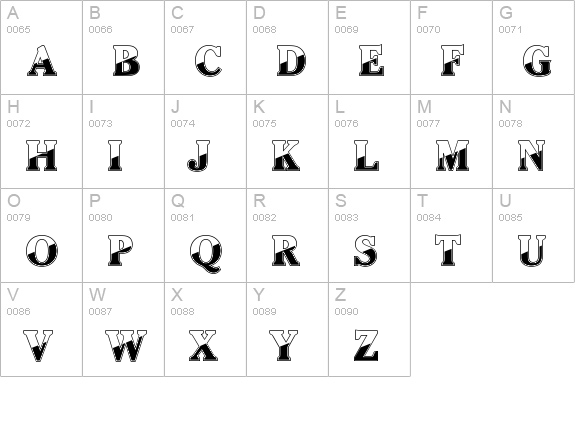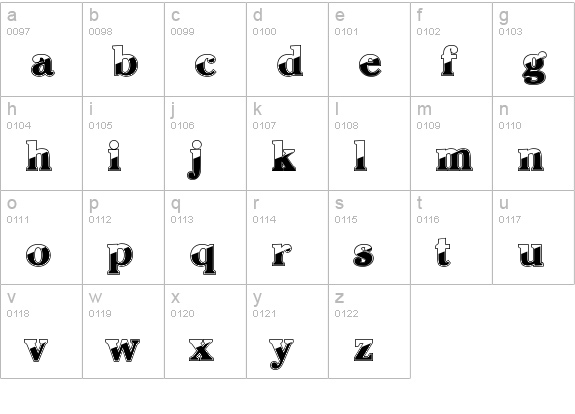
Chell Chrome Bold is a strong, high-contrast variant in the Chell typeface family \xE2\x80\x94 well suited to headlines, attention-grabbing titles, and strong calls-to-action.
Introducing Chell Chrome Bold, a striking and modern typeface that exudes confidence and sophistication. With its bold and eye-catching design, Chell Chrome Bold is perfect for making a statement in any project or design application. The sleek lines and sharp edges of this font command attention and convey a sense of strength and power. What sets Chell Chrome Bold apart is not only its visual appeal but also its versatility. Whether used for headlines, branding, or graphic design, this font effortlessly captures the essence of modernity and style. Its bold weight makes it ideal for creating impactful designs that leave a lasting impression. And the best part? Chell Chrome Bold is completely free to download at FontsMarket.com. That's right, you can elevate your projects with this stunning font without breaking the bank. Don't miss out on this opportunity to add Chell Chrome Bold to your font collection and take your designs to the next level. Download it now and let your creativity shine!